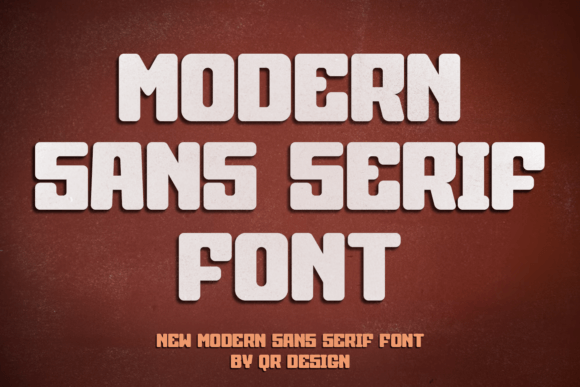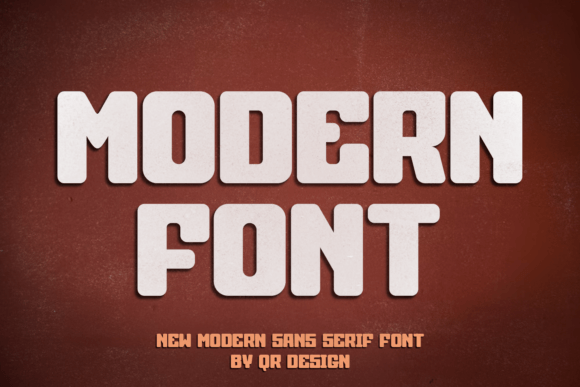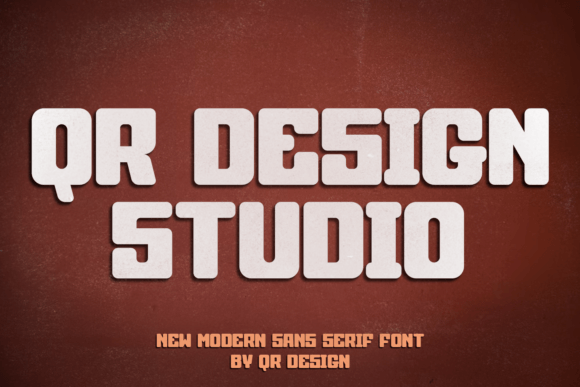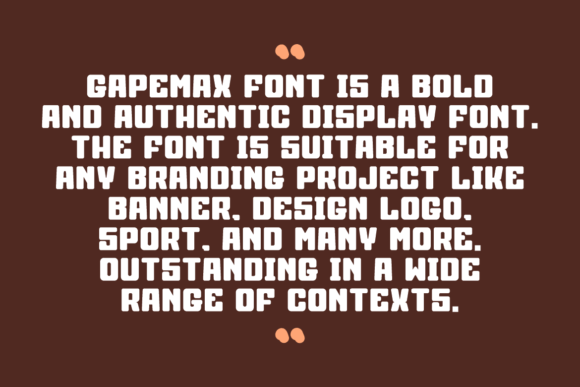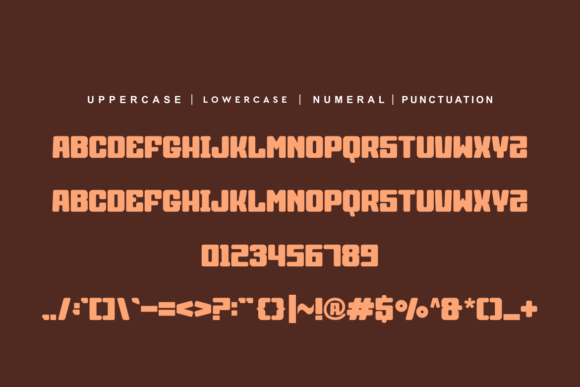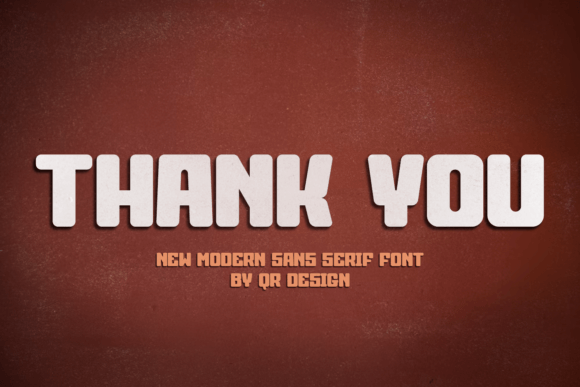
Introducing Gapemax Font: The Ultimate Sans Serif Font for Modern Designers
In the world of typography, a good font can make all the difference in creating a lasting impression. For designers and crafters, finding the perfect font that embodies the right balance of style, versatility, and authenticity can be a daunting task. However, if you’re looking for a bold and authentic sans serif font that can elevate your branding projects, look no further than Gapemax Font.
What is Gapemax Font?
Gapemax Font is a stunning sans serif font that exudes confidence and modernity. Its clean lines, precise curves, and bold strokes make it an excellent choice for designers seeking to create a strong visual identity. This beautiful font is designed to be versatile, making it suitable for a wide range of applications, from logo creation and t-shirt printing to e-sport branding and beyond.
Key Features of Gapemax Font
- Bold and Authentic: Gapemax Font boasts a bold and authentic style that commands attention. Its unique character set makes it perfect for creating eye-catching logos, titles, and headings.
- Sans Serif: The font’s sans serif design ensures that your text remains clean and legible, even at smaller font sizes.
- Versatile: Gapemax Font is designed to be versatile, making it suitable for various design projects, including branding, advertising, and marketing materials.
- Easily Readable: The font’s clear and precise design ensures that your text is easily readable, even from a distance.
Use Cases for Gapemax Font
Gapemax Font is an excellent choice for various design projects, including:
- Logo Creation: Create a bold and memorable logo that stands out from the competition.
- T-Shirt Printing: Use Gapemax Font to create eye-catching designs for t-shirts, hoodies, and other apparel.
- E-Sport Branding: Elevate your e-sport brand with a modern and sleek font that resonates with gamers.
- Branding and Advertising: Use Gapemax Font to create stunning marketing materials, such as brochures, flyers, and posters.
Why Choose Gapemax Font?
With so many fonts available, why choose Gapemax Font? Here are a few compelling reasons:
- Unique Style: Gapemax Font offers a unique and distinctive style that sets it apart from other fonts.
- High-Quality Design: The font is designed with precision and attention to detail, ensuring a high-quality finish.
- Versatile: The font’s versatility ensures that it can be used across various design projects.
In conclusion, Gapemax Font is an exceptional sans serif font that offers a bold and authentic style, making it perfect for modern designers and crafters. Its versatility, readability, and unique character set make it an excellent choice for various design projects. Whether you’re creating a logo, t-shirt design, or e-sport branding, Gapemax Font is sure to impress. So why wait? Download Gapemax Font today and take your designs to the next level!